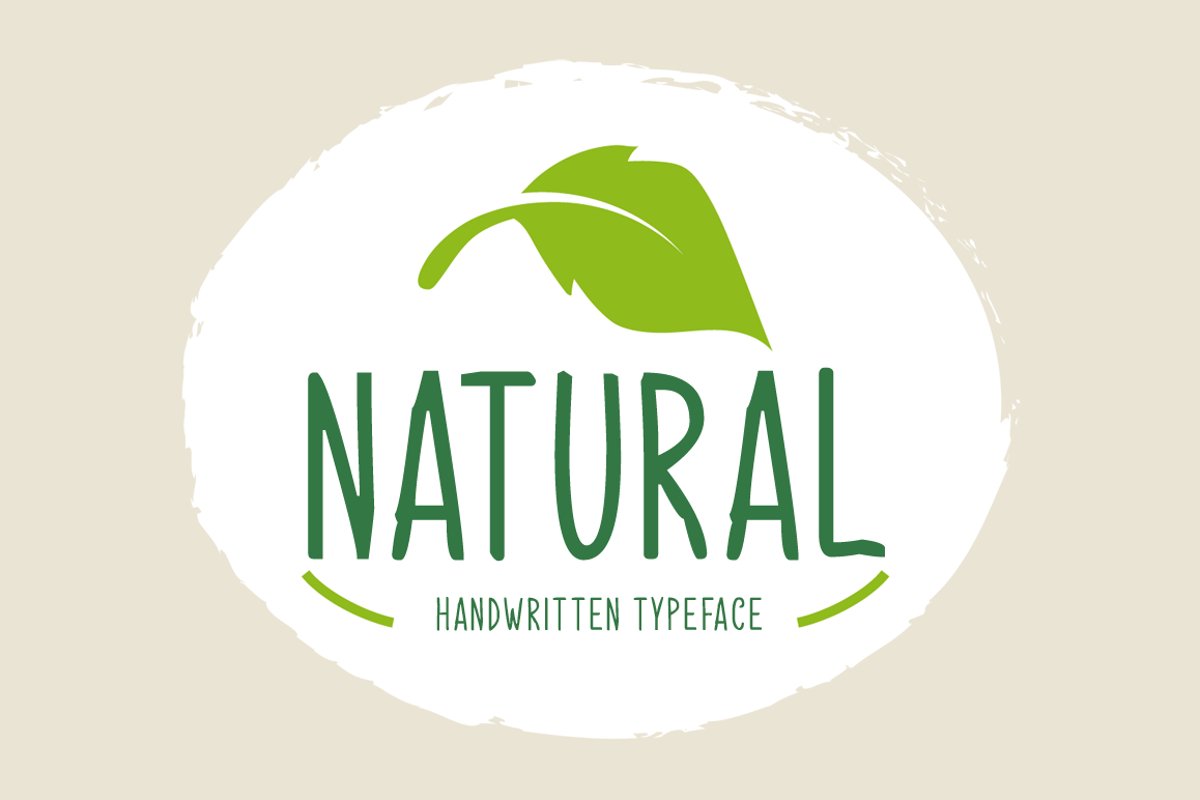
Introducing Natural!
Natural is a brand new handwritten font. Natural is perfectly suited for stationery, logos, t-shirt, paper, print design, website header, photo frame, flyer, music cover, poster, image slider, and much more.